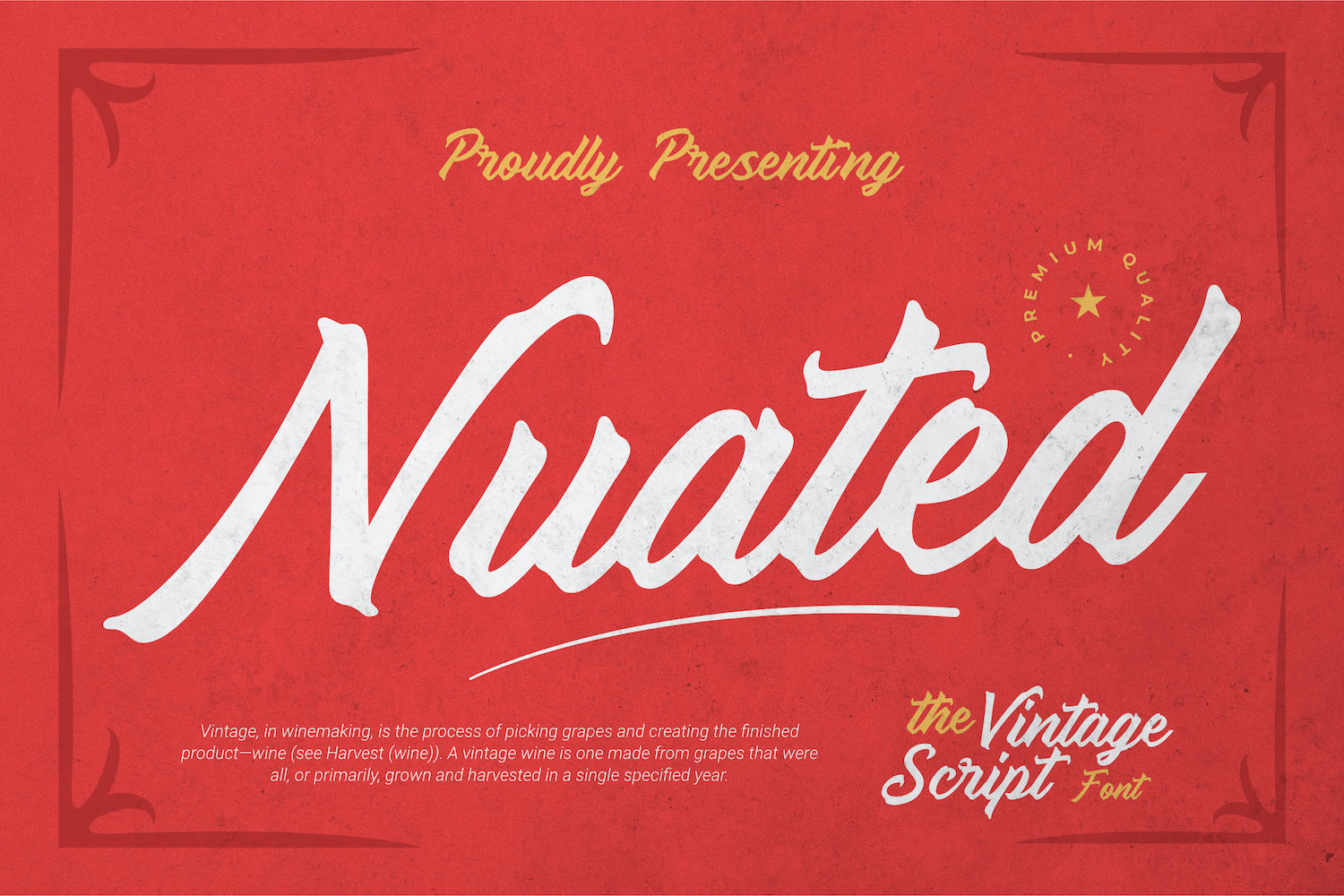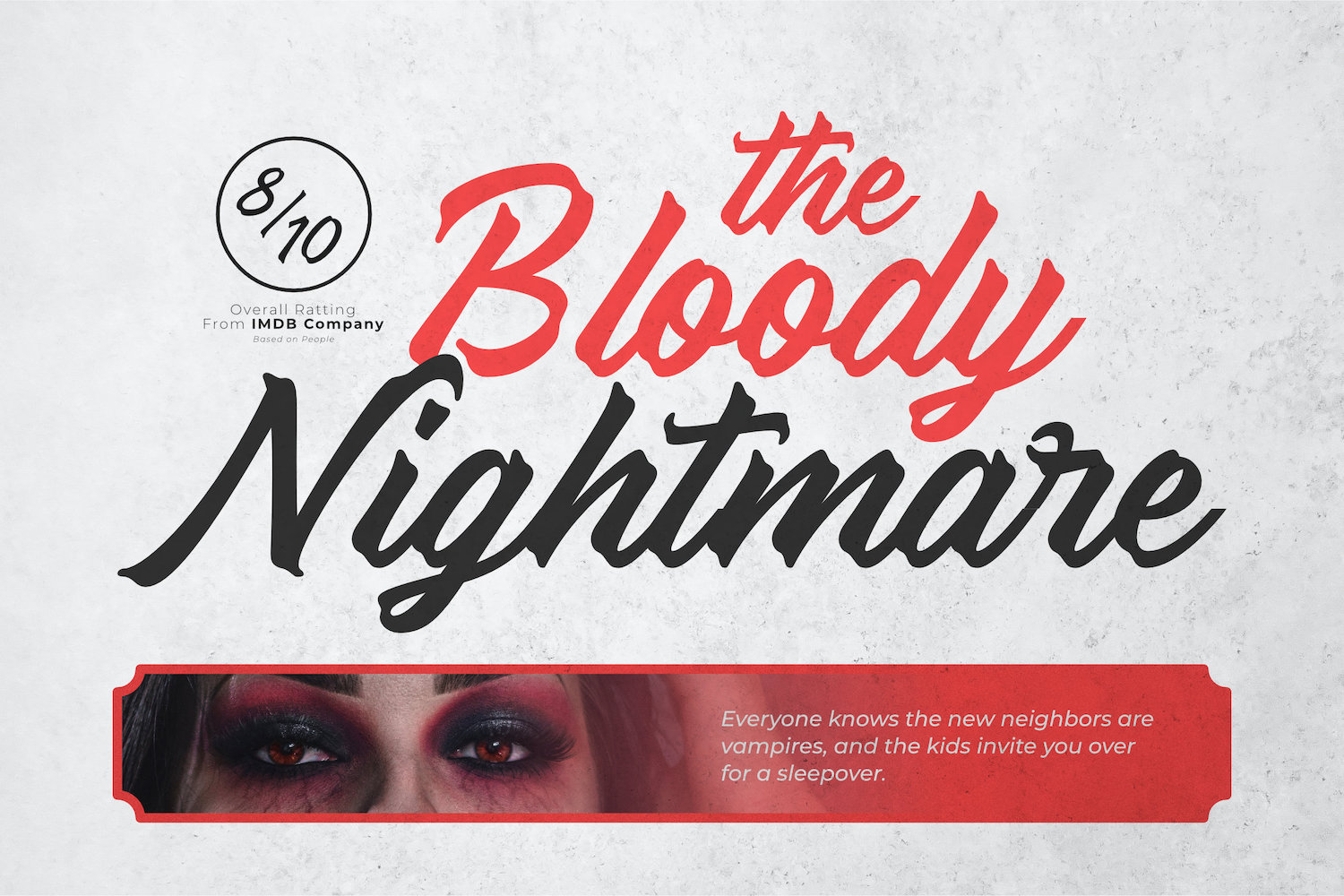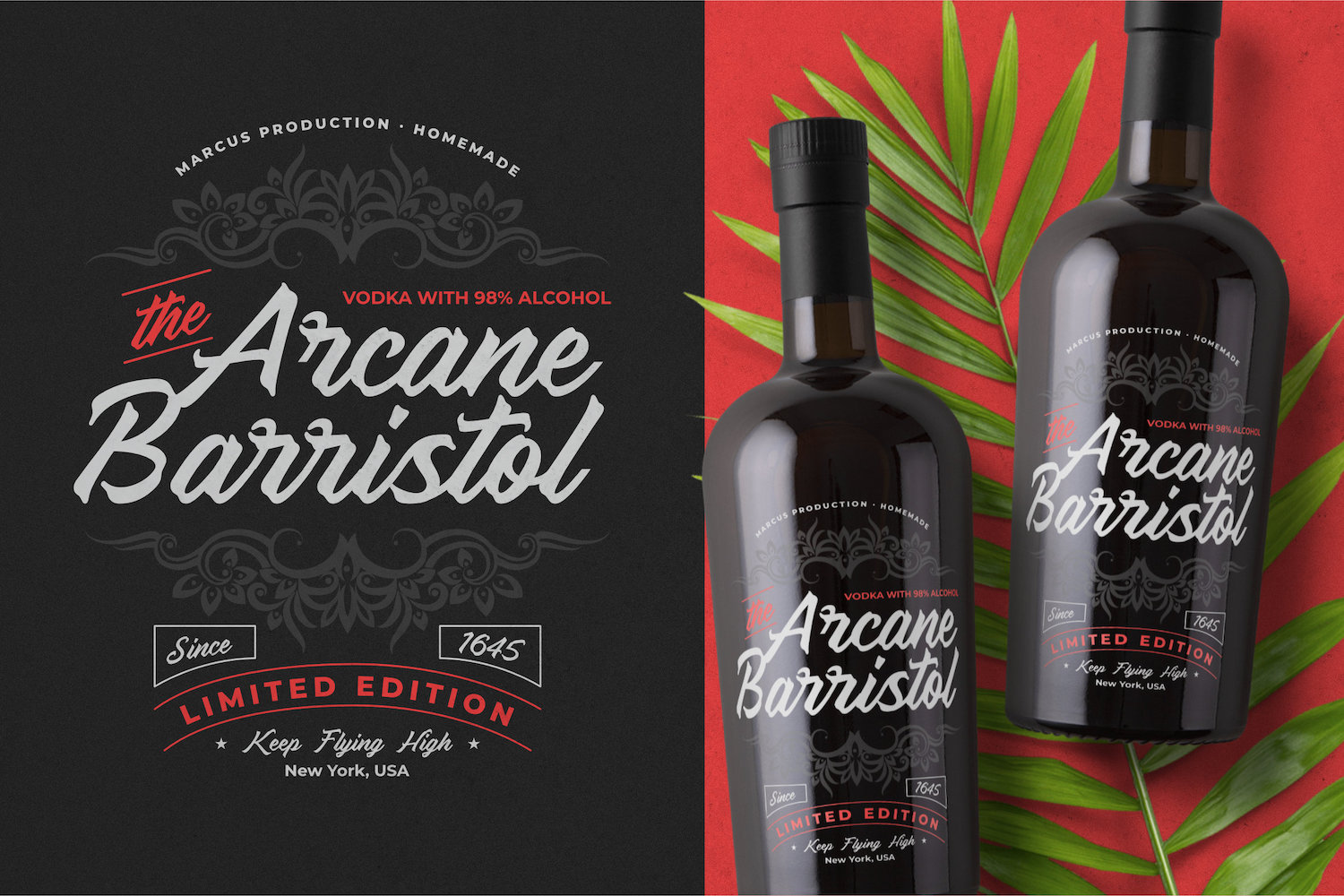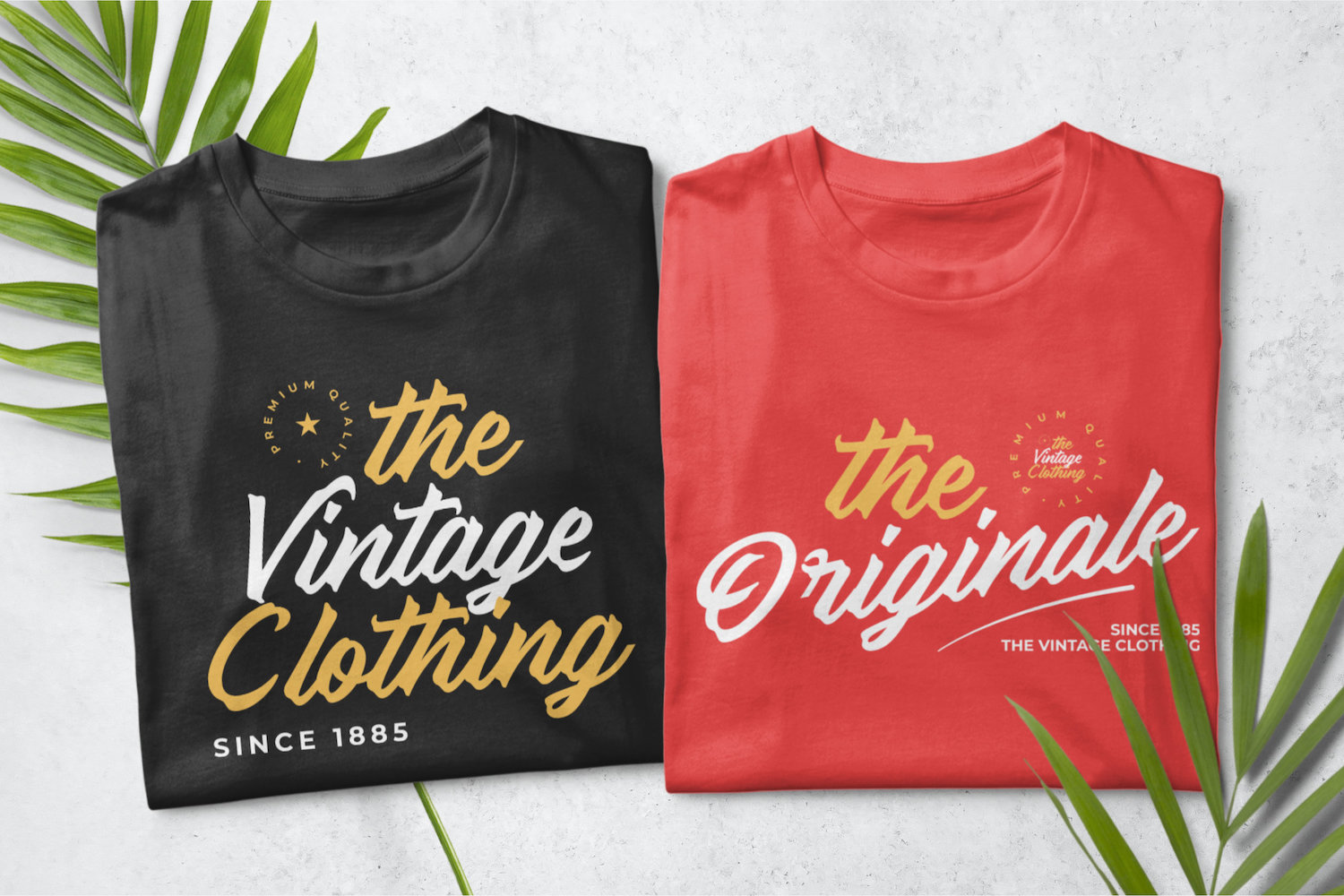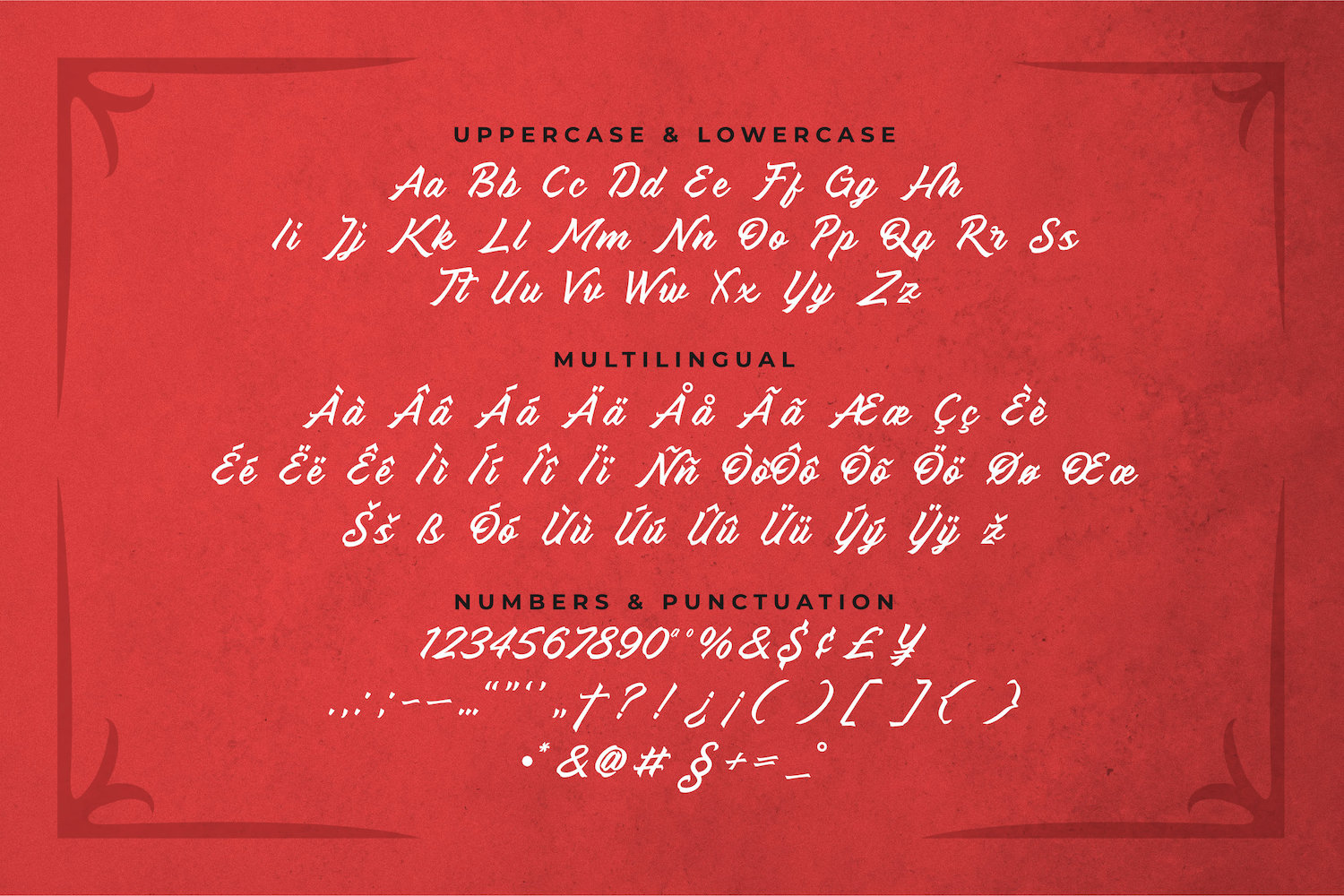
Nuated is a vintage script font that blends classic brush script charm with a touch of bold elegance. Its fluid strokes and slanted characters give off a hand-painted look, perfect for retro branding, liquor labels, and nostalgic apparel. The font’s strong personality is ideal for designs that seek to evoke an authentic, vintage mood with a dynamic edge.
Designed with multilingual support and complete punctuation, Nuated is versatile across print, packaging, and promotional graphics. Whether you’re crafting a wine label, vintage movie title, or premium merchandise, this script typeface delivers style, legibility, and retro flair.